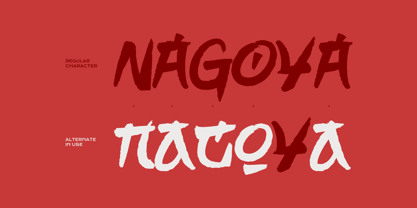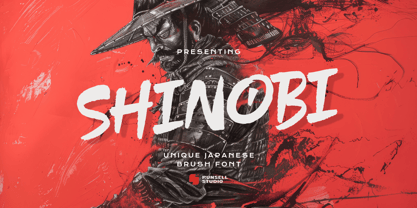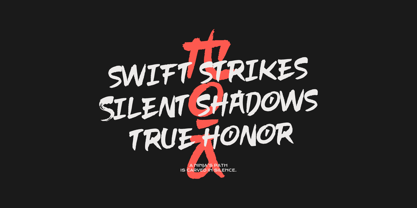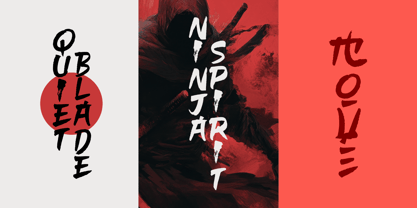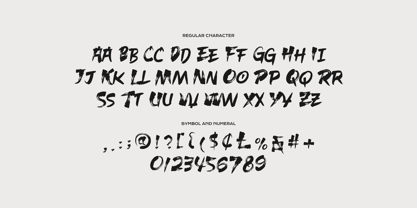
Shinobi
by Runsell Type
The Shinobi Font Family was designed by Fina Fadhila Rosida and published by Runsell Type. Shinobi contains 1 styles.
Shinobi is a Japanese font style with a dry brush effect captures the raw, expressive beauty of traditional calligraphy, blending bold, sweeping strokes with an organic, textured feel. This style evokes the fluidity and artistry of Japanese ink painting, with uneven, slightly faded edges that mimic the natural imperfections of hand-painted characters. The dry brush effect adds an element of rustic charm and authenticity, creating a sense of movement and energy. Each character feels dynamic and fluid, as if painted with a brush that has just enough ink to leave textured, imperfect strokes. Perfect for designs that require an artistic, culturally-rich, and emotive look, this style balances elegance with a touch of spontaneity.
Designers: Fina Fadhila Rosida
Publisher: Runsell Type
Foundry: Runsell Type
Design Owner: Runsell Type